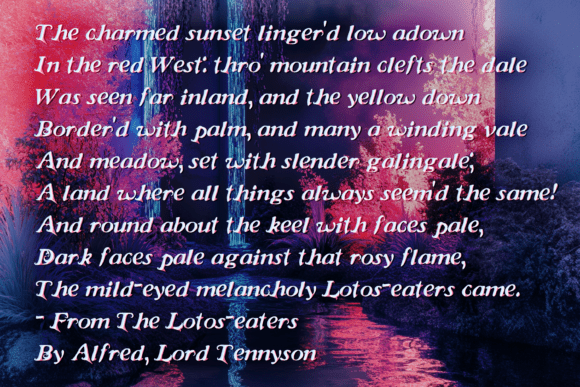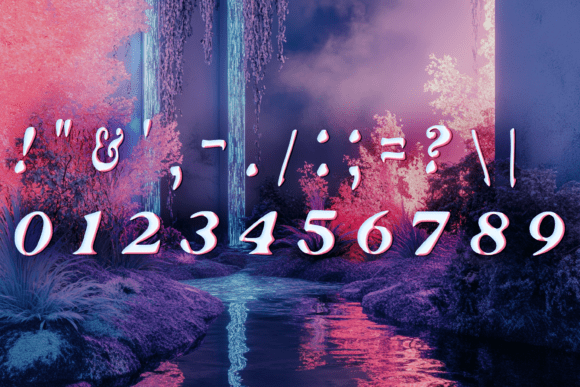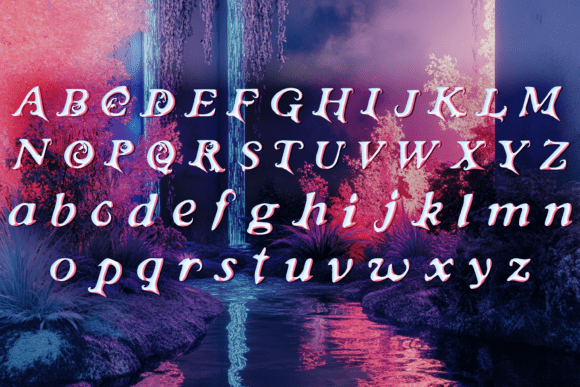
Unleash Your Creativity with Bold Fantasy Euphoria Font
Are you a designer, crafty enthusiast, or simply someone who loves to dabble in creative projects? Look no further than the “Bold Fantasy Euphoria” font, a striking and dynamic typeface designed to captivate and inspire. This bold font exudes confidence and mystique, making it perfect for a wide range of applications, from fantasy-themed designs and book covers to gaming graphics, branding, posters, and more.
The Essence of Bold Fantasy Euphoria
At its core, “Bold Fantasy Euphoria” is a font that embodies the spirit of fantasy and adventure. Its clean lines and subtle flourishes combine modern typography with a touch of magic, creating a unique and captivating visual experience. Whether you’re looking to create a sense of wonder, evoke a feeling of mystery, or simply add a dash of excitement to your designs, this font is sure to deliver.
Key Features of Bold Fantasy Euphoria
• Bold and Dynamic Design: The font’s bold design ensures that your text stands out, making it perfect for headlines, titles, and emphasis.
• Fantasy-Themed: With its mystical and adventurous feel, “Bold Fantasy Euphoria” is ideal for fantasy-themed projects, including book covers, gaming graphics, and posters.
• Versatile: This font is not limited to fantasy themes; its modern and sleek design makes it suitable for a wide range of applications, from branding and advertising to packaging and more.
• Clean Lines and Subtle Flourishes: The font’s clean lines provide a clear and readable base, while the subtle flourishes add a touch of elegance and sophistication.
Uses for Bold Fantasy Euphoria
The versatility of “Bold Fantasy Euphoria” makes it an excellent choice for various creative projects. Here are some ideas to get you started:
• Book Covers: Add a touch of magic to your book covers with a font that screams fantasy and adventure.
• Gaming Graphics: Elevate your game titles, logos, and in-game text with a bold and dynamic font that captures the essence of gaming.
• Branding: Create a lasting impression with a font that exudes confidence and mystique, perfect for brands looking to stand out.
• Posters and Flyers: Grab attention with bold and eye-catching text that demands to be noticed.
• Packaging: Add a touch of elegance and sophistication to your product packaging with a font that’s both modern and captivating.
Tips for Using Bold Fantasy Euphoria
To get the most out of “Bold Fantasy Euphoria,” here are some tips to keep in mind:
• Use it Sparingly: While the font is bold and dynamic, using it sparingly can create a more dramatic effect.
• Pair it with Simpler Fonts: Pair “Bold Fantasy Euphoria” with simpler fonts to create contrast and visual interest.
• Experiment with Colors: Don’t be afraid to experiment with different colors and textures to add depth and dimension to your designs.
“Bold Fantasy Euphoria” is a font that can elevate your designs and bring a sense of wonder to every project. Its unique blend of modern typography and magical flair makes it perfect for designers, crafty enthusiasts, and anyone looking to add a touch of excitement to their creative endeavors. So why wait? Unleash your creativity with “Bold Fantasy Euphoria” and discover a world of limitless possibilities.